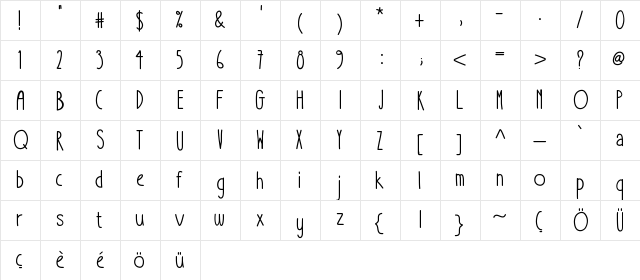
TakeItOrLeaveIt Medium
Design Context for TakeItOrLeaveIt
TakeItOrLeaveIt is a composed and adaptable typeface that performs quietly and consistently across a wide range of design contexts.